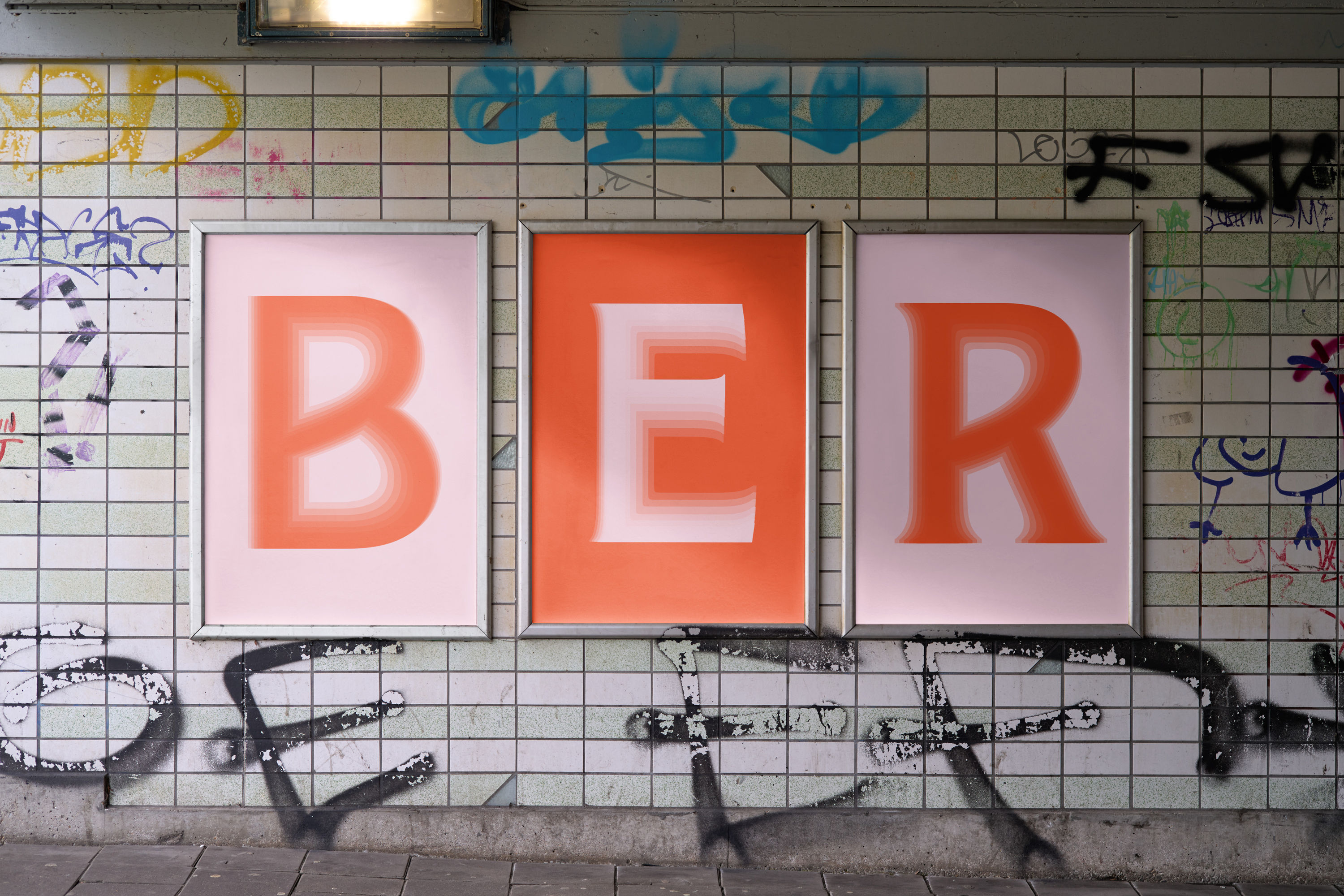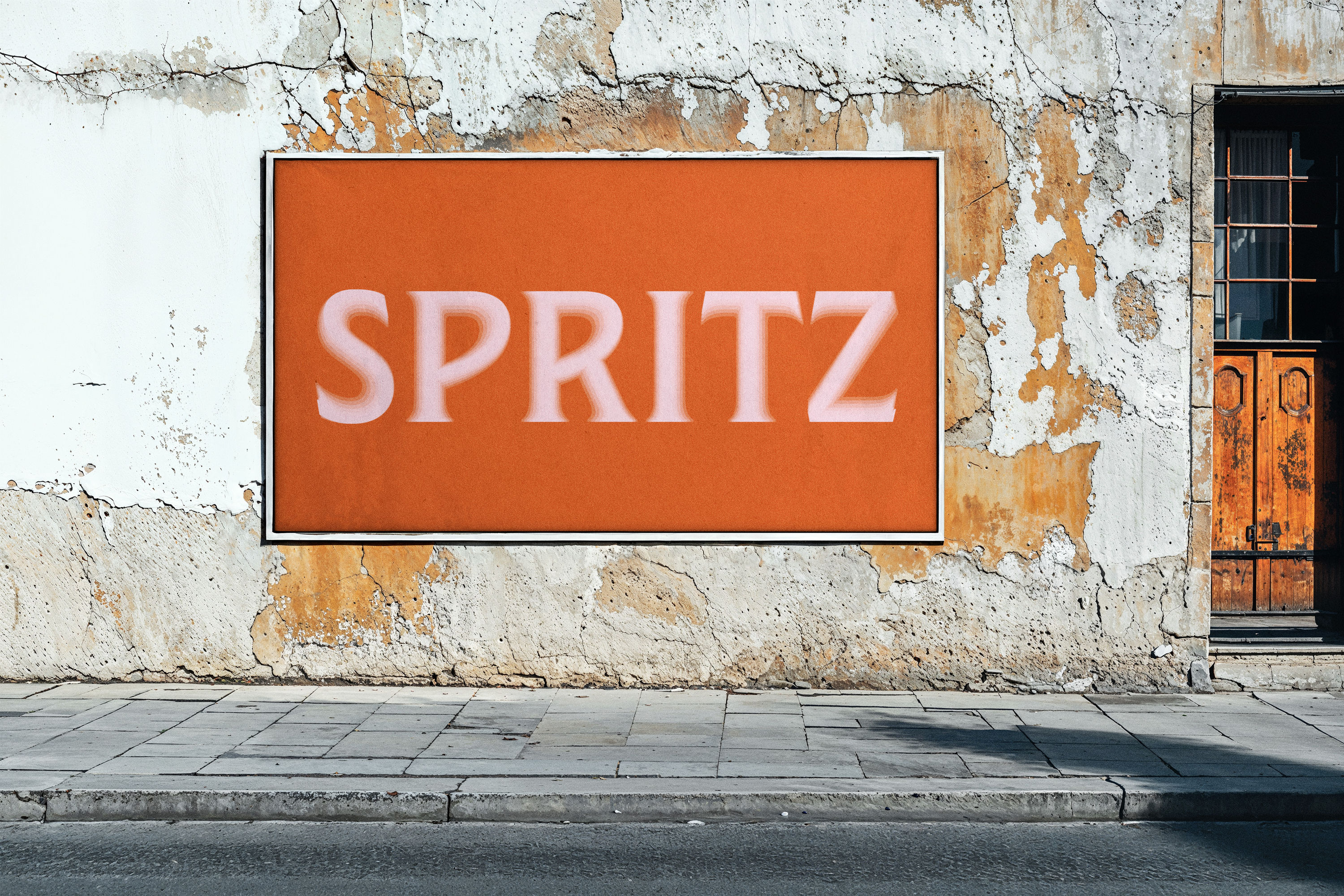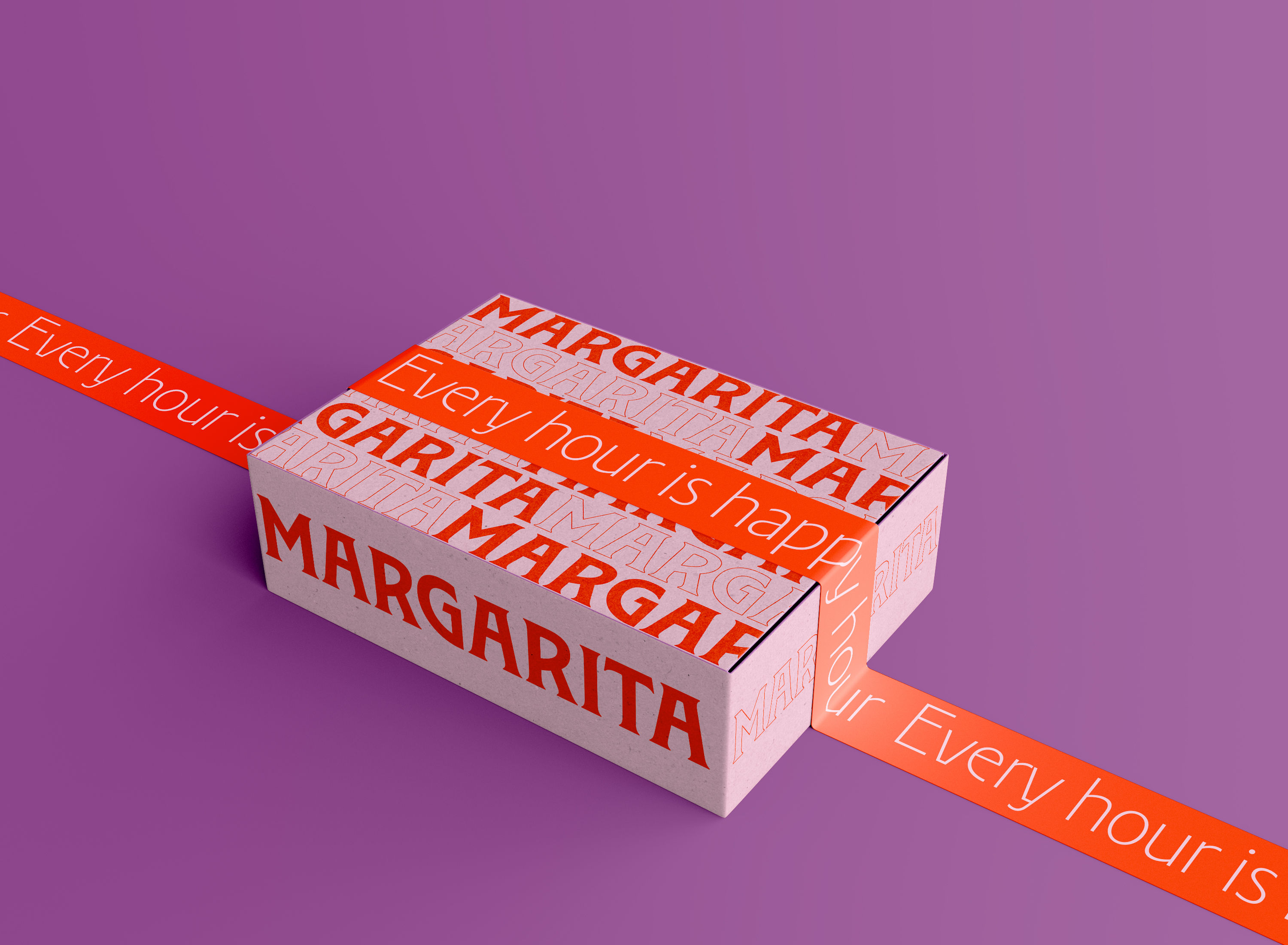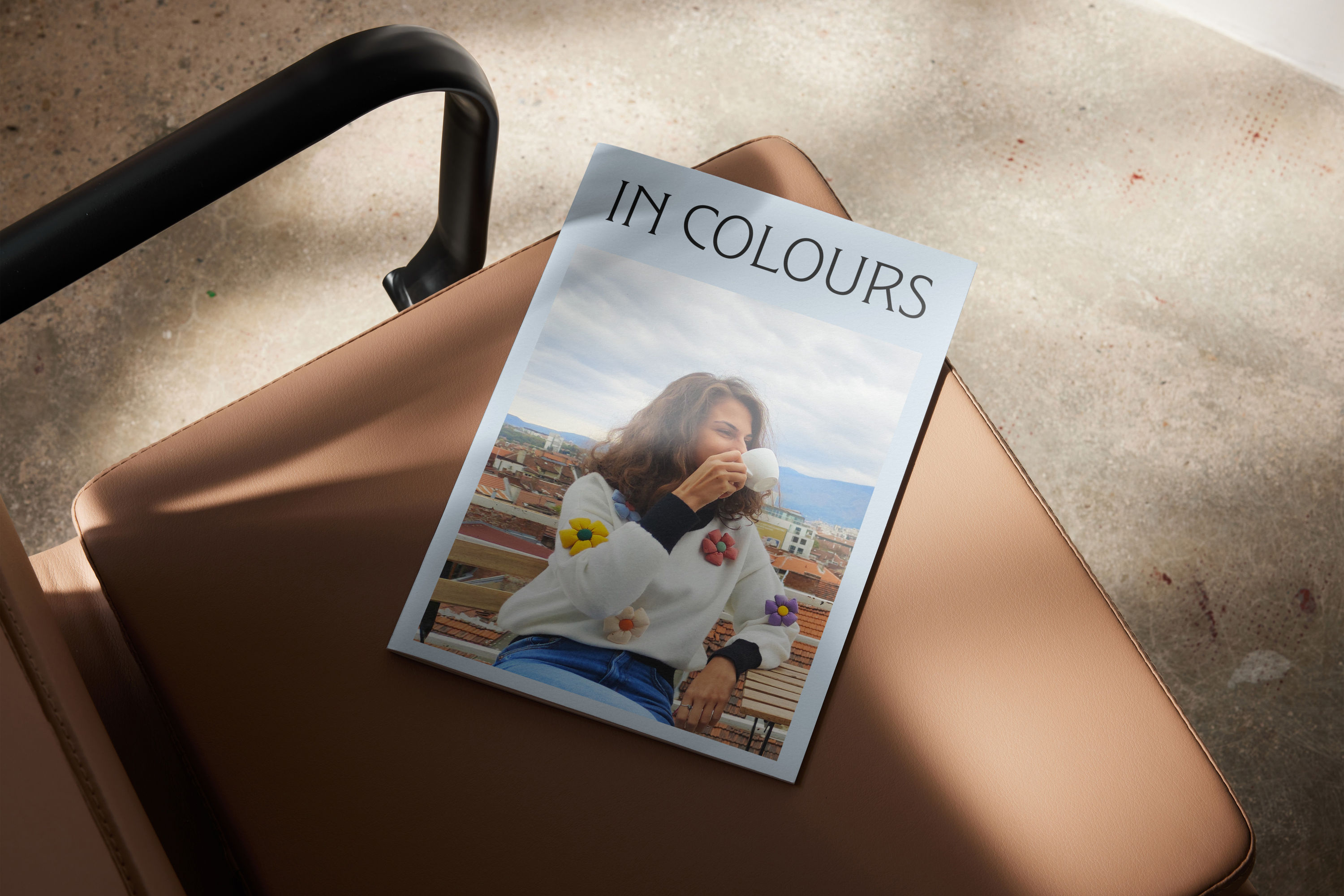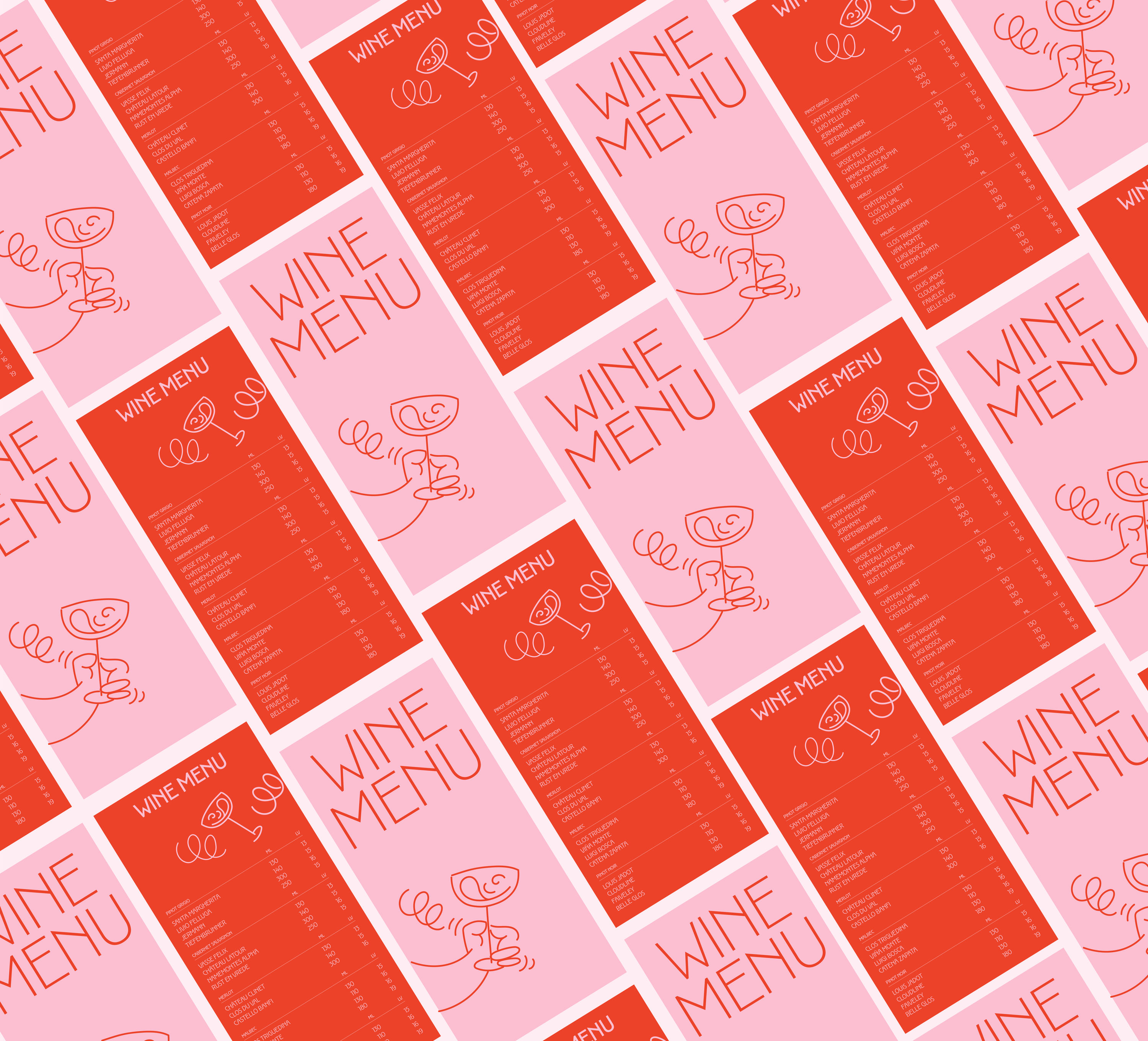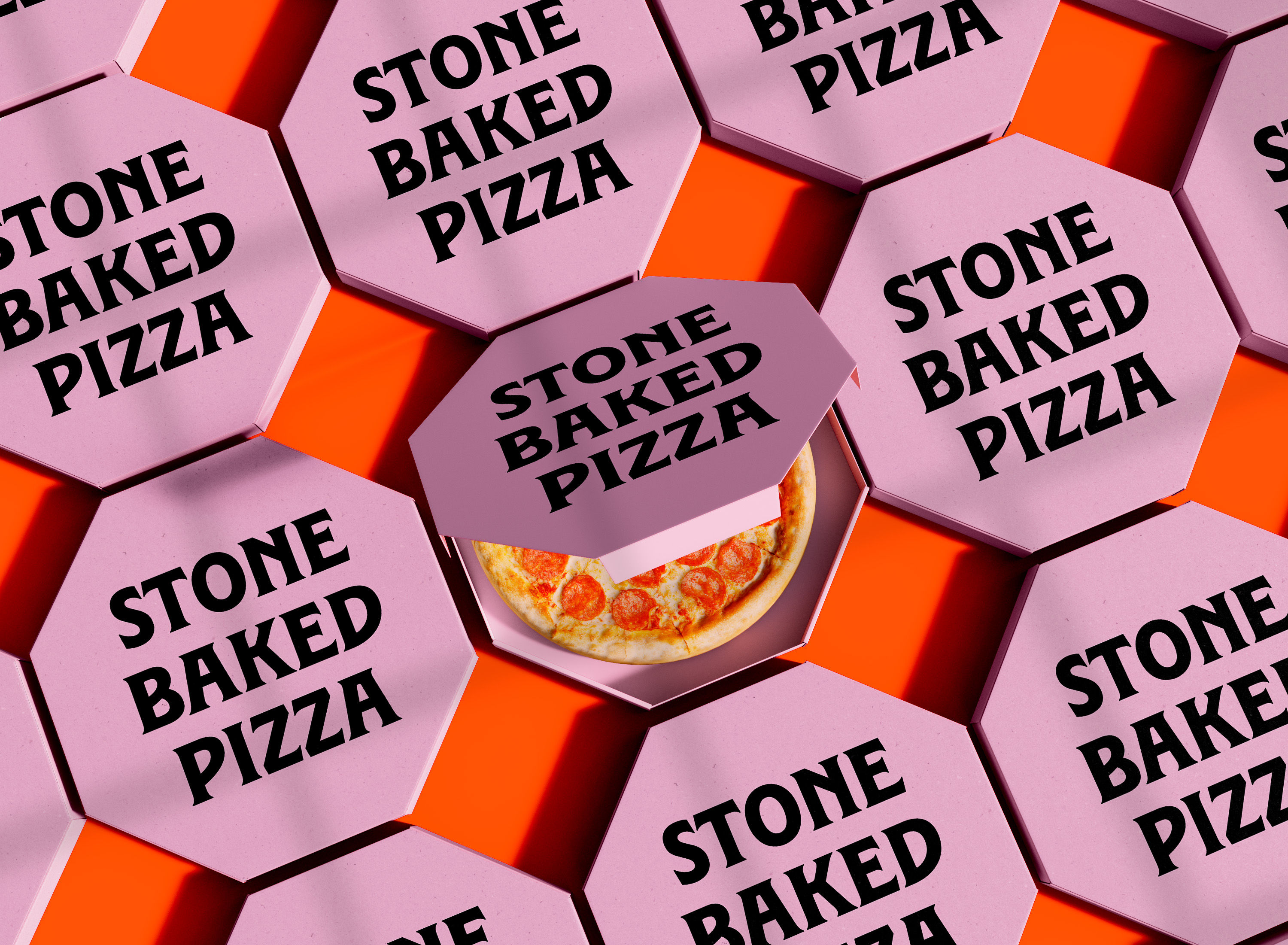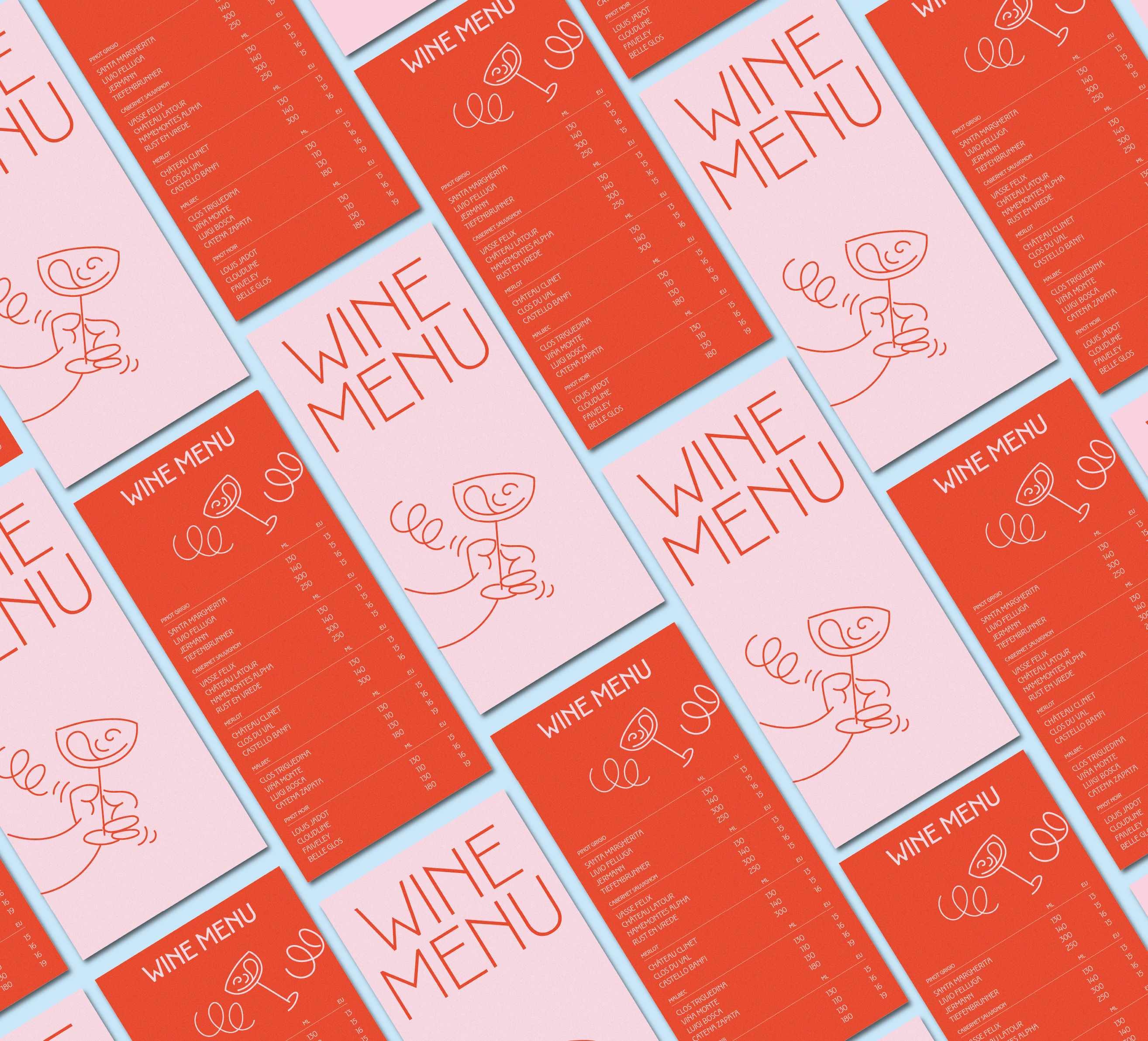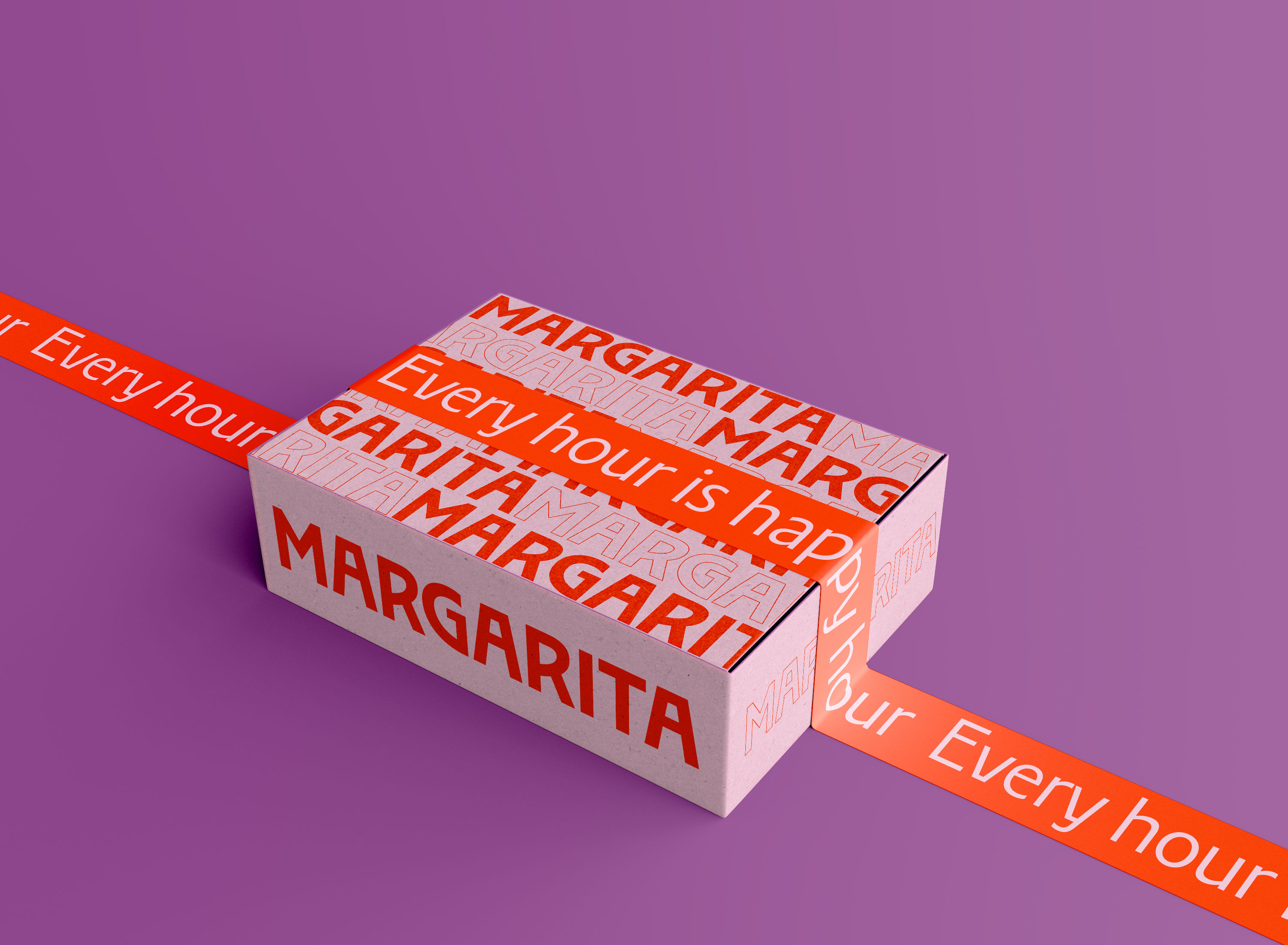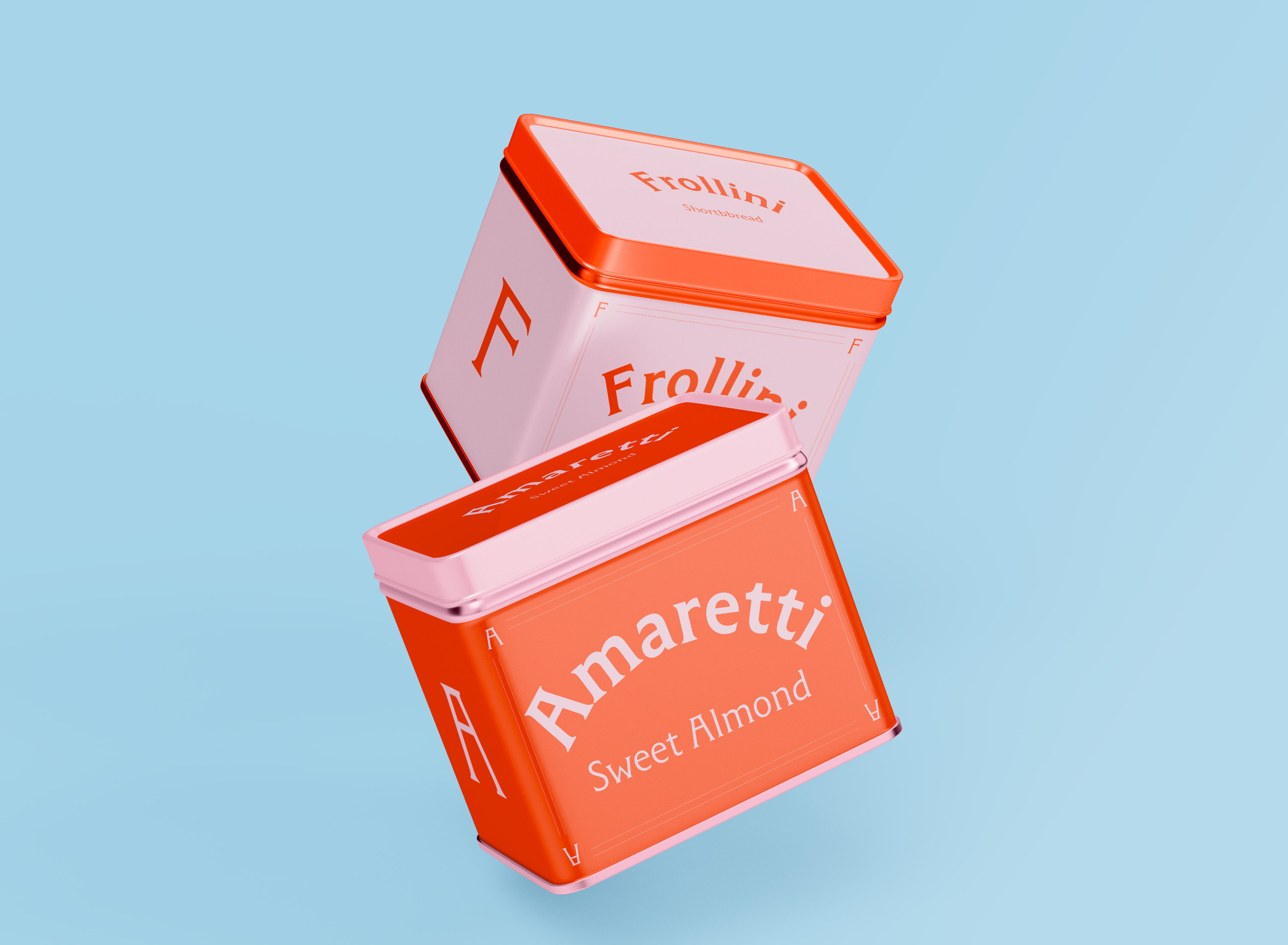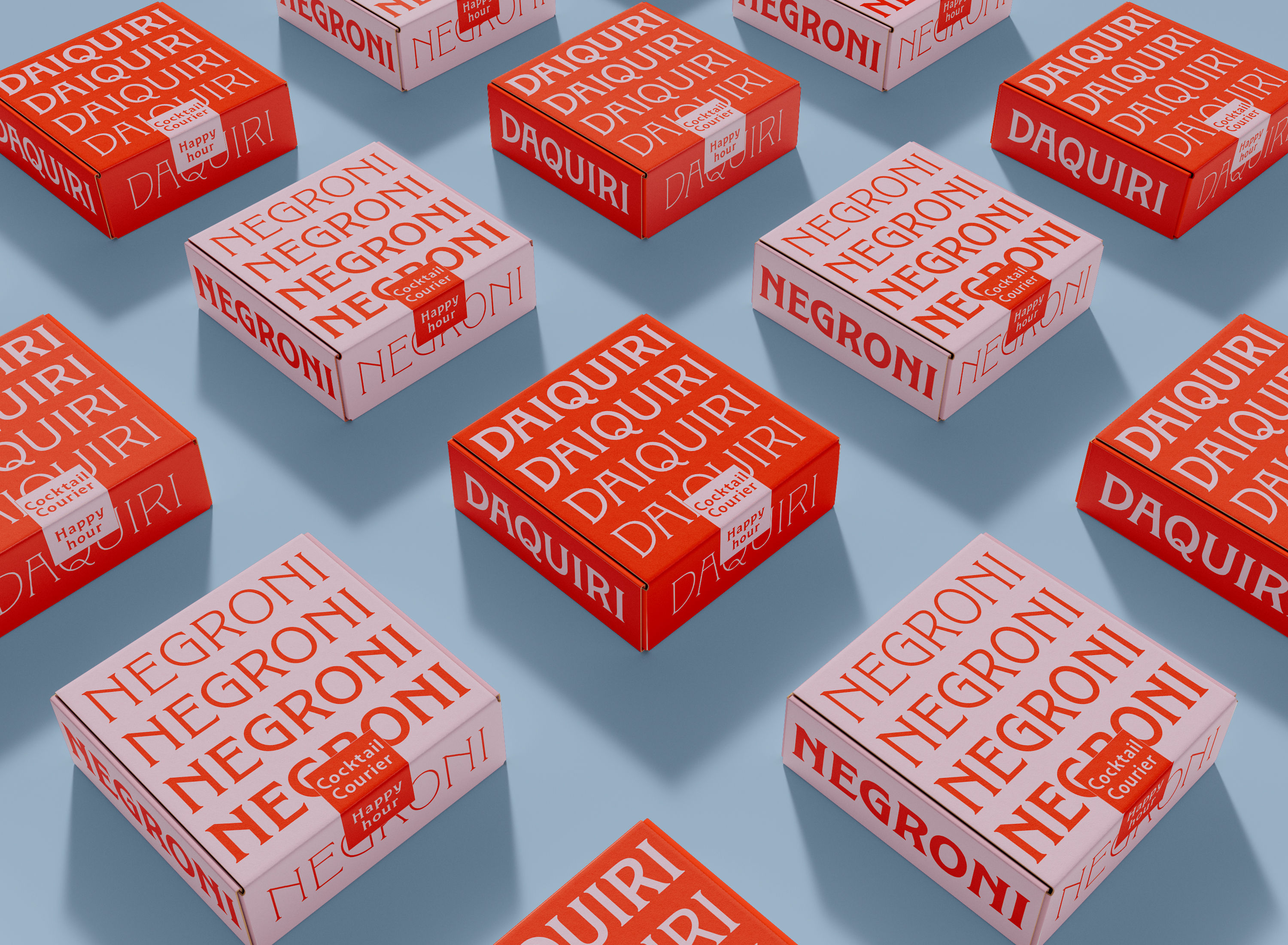
SPRITZ
Spritz is an eclectic Sans and Serif variable type system, inspired by the ornamental richness of Art Nouveau lettering. Designed with both elegance and experimentation in mind, Spritz explores the space between decorative tradition and contemporary clarity. The result is a typeface that is sophisticated, playful and full of character, with a generous touch of Italian flair.
The Sans and Serif share a common structure while offering contrasting voices. Spritz Sans features expressive and sharp letterforms with minimal contrast. Spritz Serif introduces higher contrast, pronounced serifs, and angled terminals, adding more tension and finesse. Like a well-crafted cocktail, Spritz balances unusual ingredients into a rich, flavourful, and effortlessly inviting experience.
Stylistic Sets
Default EF
Alt EF: long SS01
Alt G: no crossbar SS02
Alt а: single-storey SS03
Alt &: traditional SS04
Default Cyrillic
Bulgarian Cyrillic SS05
Default Cyrillic
Serbian Cyrillic SS06